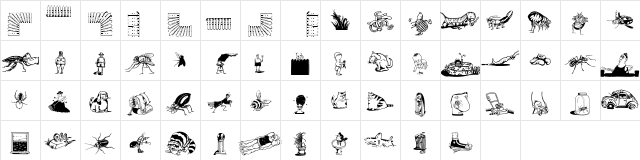
Complete BackyardBeastiesITC Regular glyph index. Displaying only characters natively supported by BackyardBeastiesITC Regular font.
BackyardBeastiesITC is a composed and adaptable typeface that performs quietly and consistently across a wide range of design contexts.